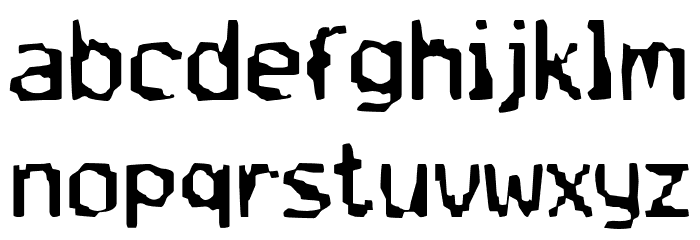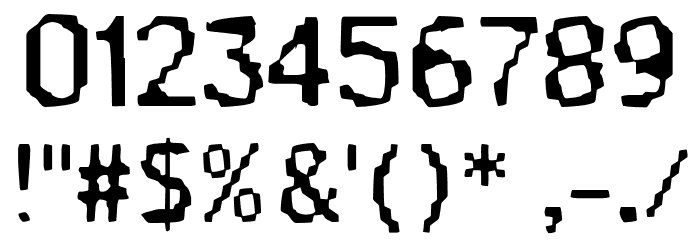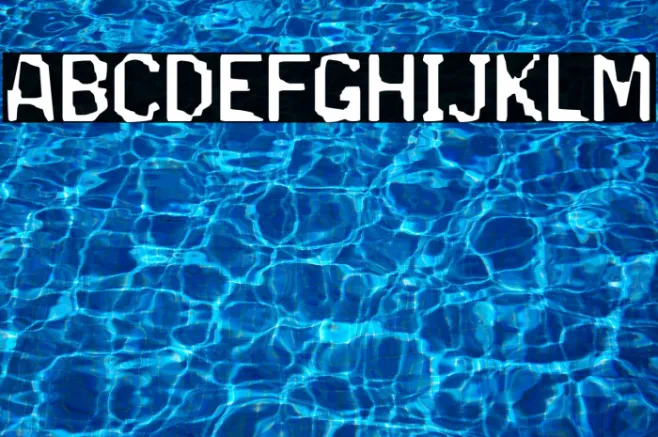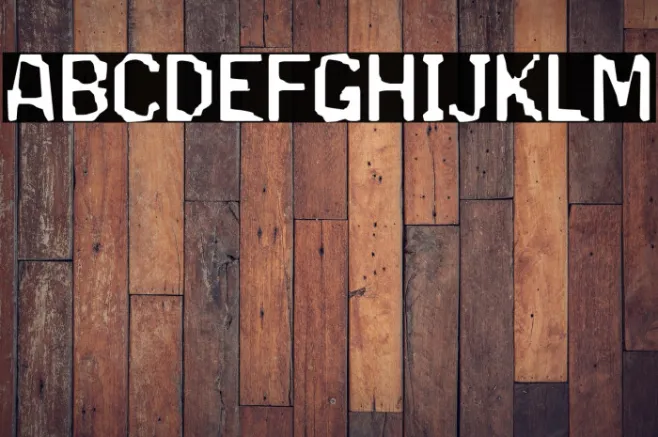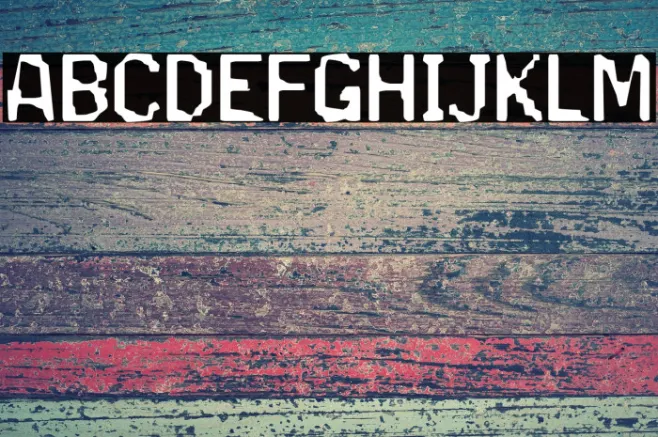
SB Phormic Font
This font features a bold and rugged design with a distinctly hand-drawn appearance. The characters are irregular and jagged, giving them a raw, organic feel. The uppercase and lowercase letters maintain a consistent style, with thick strokes and uneven edges that create a sense of movement and energy. The numbers and special characters follow the same aesthetic, ensuring a cohesive look across all text elements. This font's unique style makes it stand out, offering a visually striking option for creative projects that require a bold statement.
A bold, hand-drawn font with rugged, irregular characters.
- Font: SB Phormic
- Proposed Projects: Ideal for posters, album covers, branding projects, and any design requiring a bold, artistic touch.